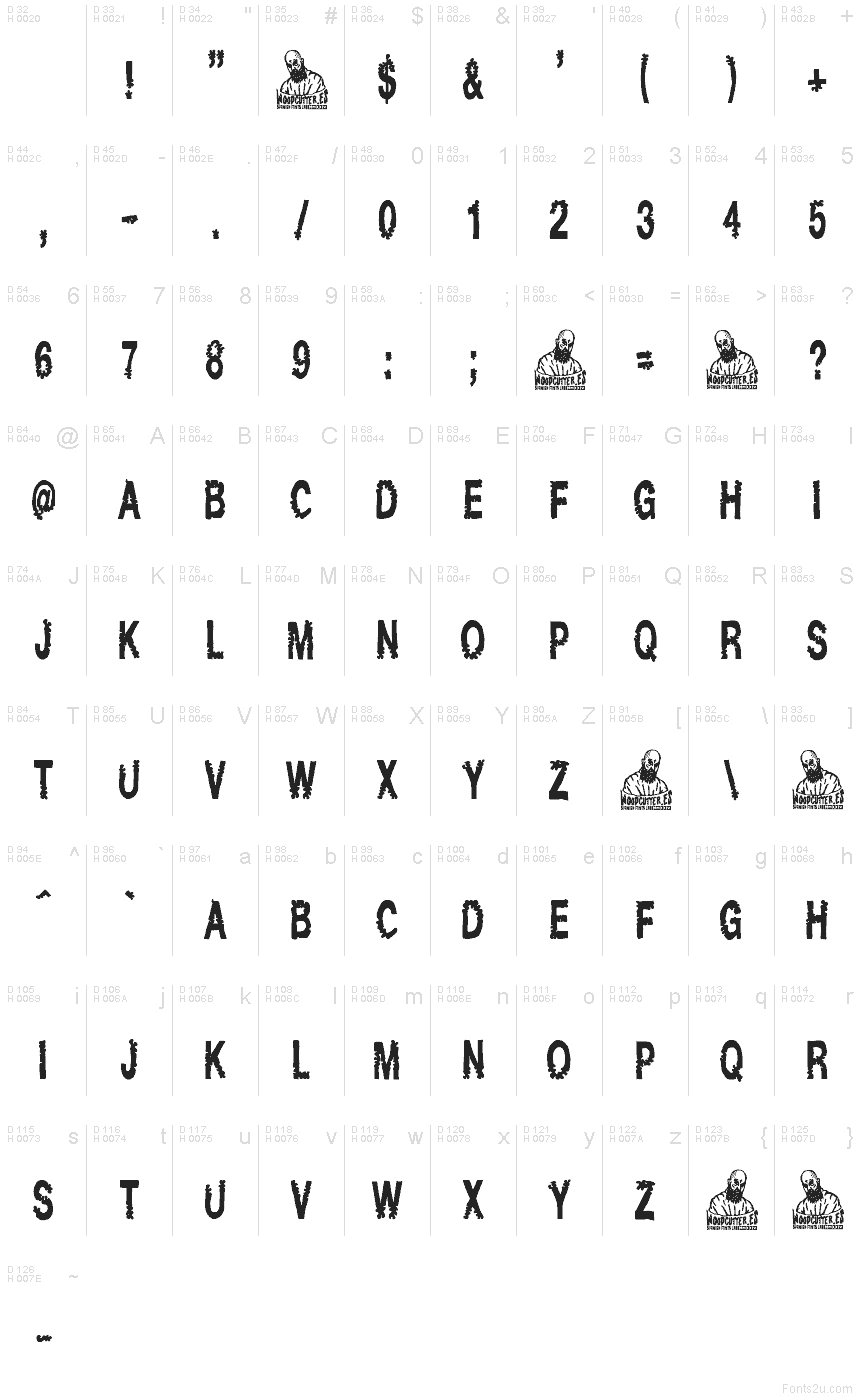
Maripeich el Último
Maripeich el Último font by Woodcutter Manero is a condensed display font with a grungy and rugged feel. The chaotic character of this avant-garde typeface comes from the distressed look of the eroded letters and the aggressive style released. Such details make each letter peculiar and more interesting than most common fonts.
Use Maripeich el Último for covers, packages, flyers, posters, websites, album art design ideas, social media design proposals (Instagram especially), stickers, labels or T-shirts. Both print and digital use is possible for body text or headings in your commercial or non-commercial projects.